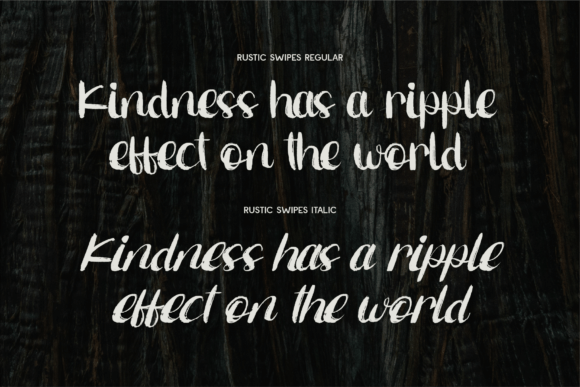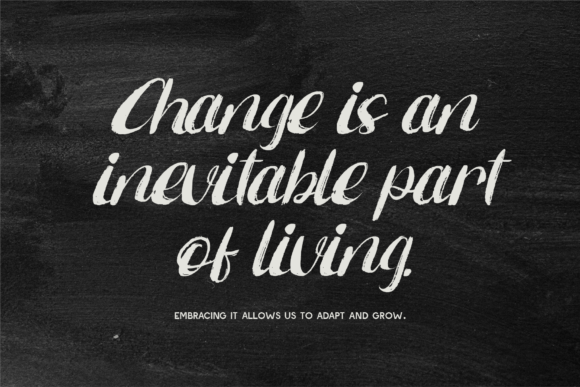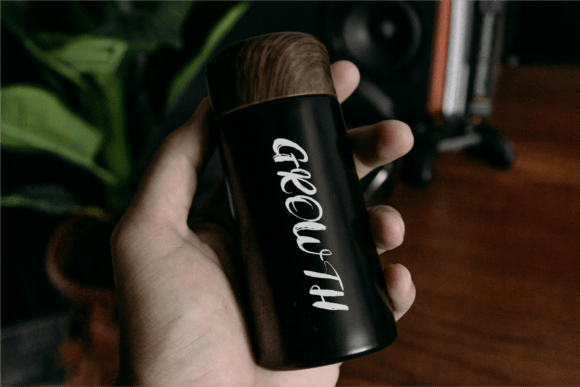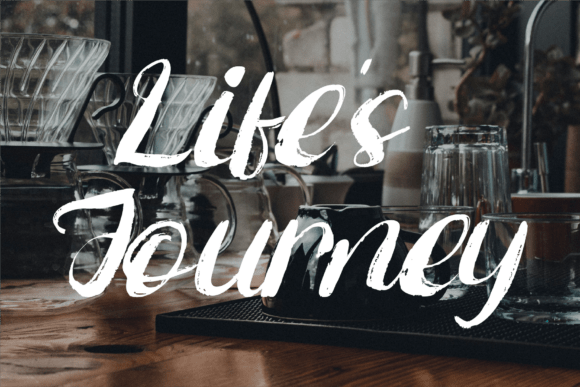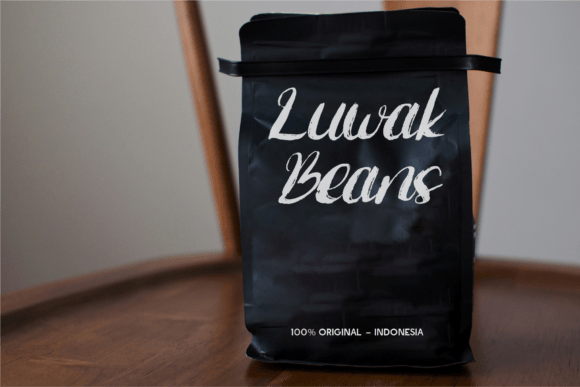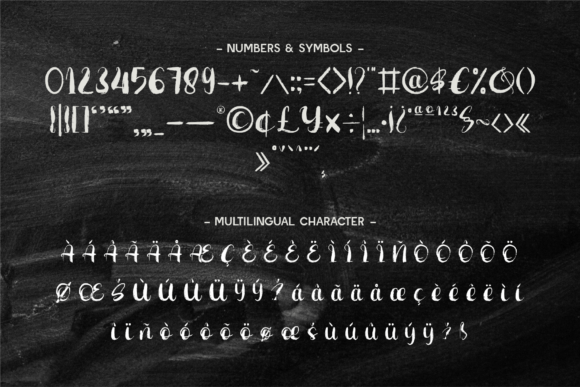
Introduction to Rustic Swipes Font
**Rustic Swipes** – A Bold & Textured Brush Script Font Unleash the power of handcrafted artistry with Rustic Swipes, a brush painting script font that blends bold strokes with rugged authenticity.
With its natural brush textures and expressive movement, this font is perfect for projects that demand a raw, organic, and high-energy feel Ideal for branding, posters, apparel, packaging, social media, and creative projects, Rustic Swipes brings an adventurous, hand-painted look to any design.
Key Features of Rustic Swipes Font
Why Choose Rustic Swipes Font?
Rustic Swipes Font offers exceptional quality and versatility, making it a valuable addition to your design toolkit. Whether you’re creating for personal projects or commercial use, Rustic Swipes Font delivers professional results.